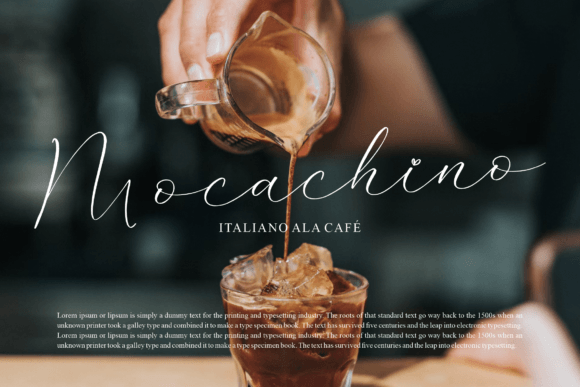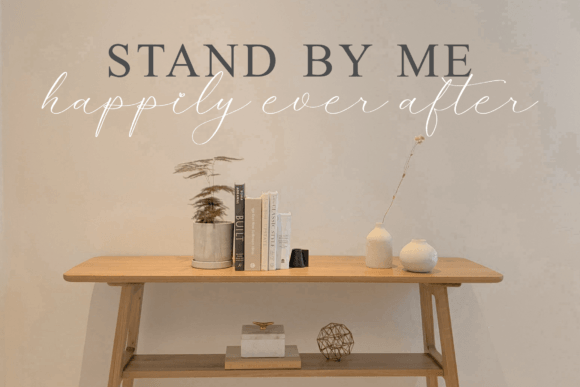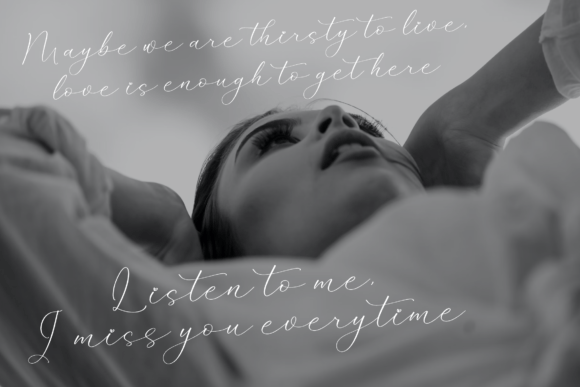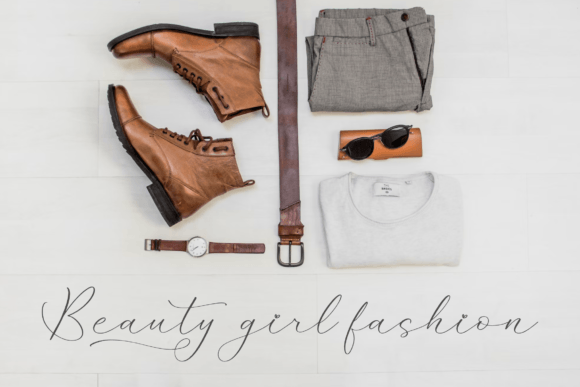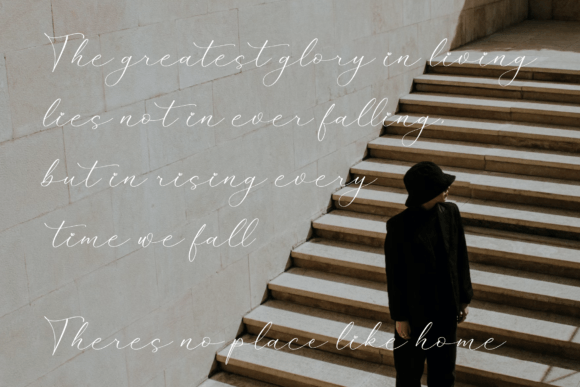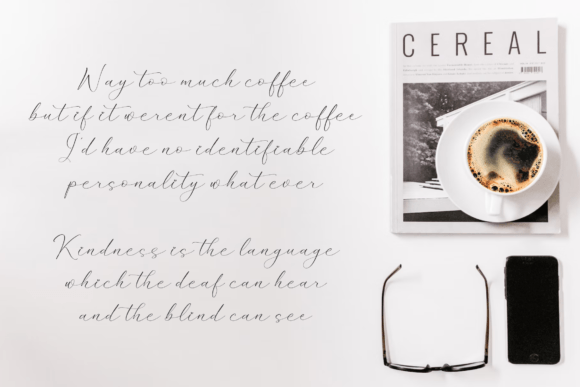
Unleashing the Magic of Elegant Typography
As a designer, have you ever found yourself pouring over a blank canvas, searching for the perfect font to bring your vision to life? For me, it’s the moment when the perfect combination of style and sophistication comes together, and it’s a feeling that never gets old. Whether you’re working on a luxury logo, a book title, or a fashion brand, the right font can make all the difference.
That’s where the Klasynta Gelisha Font comes in – a luxurious script font that exudes modern elegance and sophistication. With its unique style and versatility, this font is perfect for designers looking to create high-end designs that make a statement. Whether you’re a seasoned pro or just starting out, the Klasynta Gelisha Font is a valuable addition to any designer’s toolkit.
Klasynta Gelisha Font Key Features
- Font Type: Klasynta Gelisha is a calligraphy font, suitable for creative and elegant designs.
- Character Set: The font includes a wide range of characters, including uppercase and lowercase letters, numbers, and punctuation marks.
- Unique Characteristics: Klasynta Gelisha features beautiful, flowing lines and elegant flourishes, making it perfect for creating unique and eye-catching designs.
Klasynta Gelisha Font Review
I recently had the chance to work with the Klasynta Gelisha font, and I must say it’s a unique and intriguing typeface. Here’s my honest review:
- Distinctive, hand-drawn feel that adds a touch of personality to designs
- Wide range of weights and styles, making it versatile for various projects
- Good legibility, especially in smaller font sizes
- Supports a wide range of languages, including many non-Latin scripts
- May not be the best choice for formal or corporate designs, as it has a more playful, handwritten feel
- Can be quite dense and cluttered in larger font sizes, making it difficult to read
- Lack of consistency in some of the font’s styles, which can be jarring for designers
Overall, I think the Klasynta Gelisha font is a great choice for designers looking to add some whimsy and personality to their projects. While it may not be the best fit for every design, it’s a solid option for those who want to create something unique and eye-catching. With a little bit of careful planning and styling, the Klasynta Gelisha font can be a real showstopper.
Tips for Getting the Most Out of Klasynta Gelisha
Use Klasynta Gelisha to add a touch of elegance to your designs.
Pair it with bold fonts for maximum impact.
Common Use Cases for Klasynta Gelisha
Use Klasynta Gelisha for formal invitations, wedding stationery, and luxury branding.
Apply it to your resume or CV to stand out in a competitive job market.
Use it to create eye-catching headings and titles for your blog or website.
What is the recommended font size for Klasynta Gelisha?
The recommended font size for Klasynta Gelisha varies depending on the intended use. For body text, a font size between 12pt and 14pt is suitable. For headings, a font size between 18pt and 24pt is recommended. You can adjust the font size according to your design needs and the readability requirements of your project.